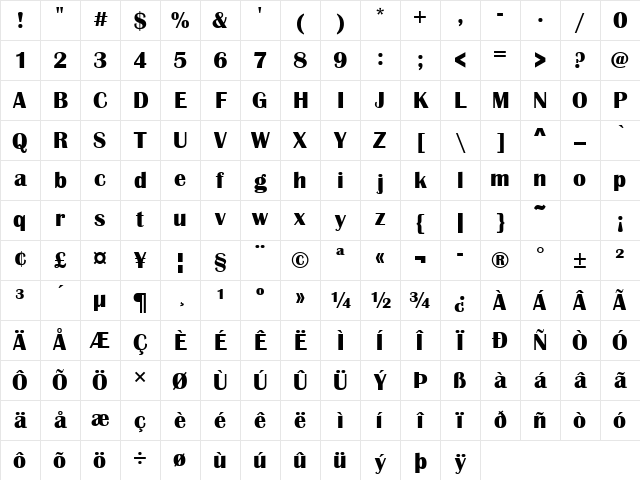
Britannic Bold Regular
Complete Britannic Bold Regular glyph index. Displaying only characters natively supported by Britannic Bold Regular font.
Design Context for Britannic Bold
Britannic Bold is a composed and adaptable typeface that performs quietly and consistently across a wide range of design contexts. Its bold stroke weight gives it real presence on the page.